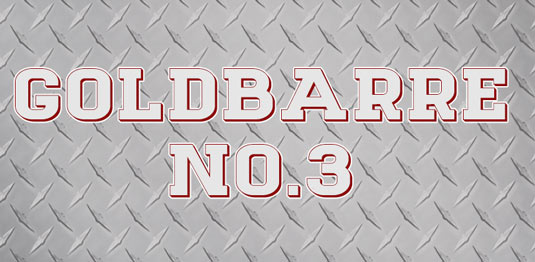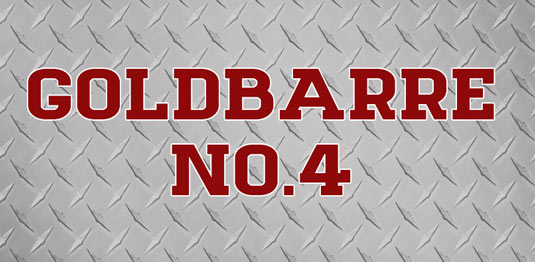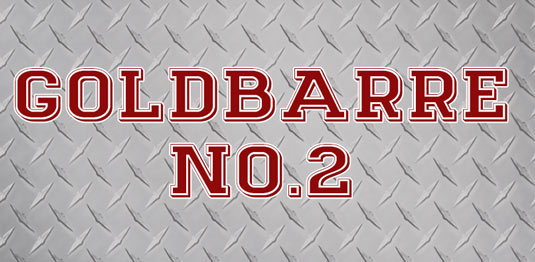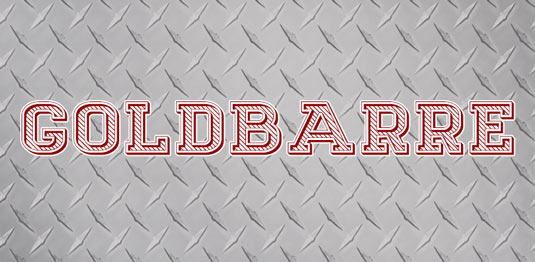
Font of the day: Goldbarre
Every day we showcase the best fonts from around the web. Today it's Goldbarre from Greater Albion.
Goldbarre from Greater Albion
Today's font of choice is Goldbarre from font foundry Greater Albion. Available from HypeForType, the design is described on the site as having letterforms that "combine finely hatched shading with and embossed, three-dimensional, quality. The utility of the family is further enhanced with Goldbarre No. 2 - a solid shaded face, Goldbarre No. 3 - an open embossed face, and Goldbarre No. 4 - a basic black slab-serif face."